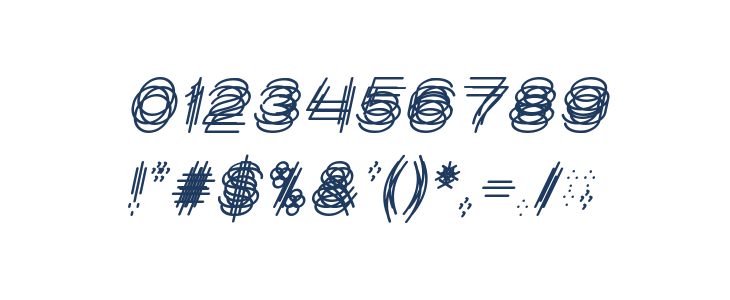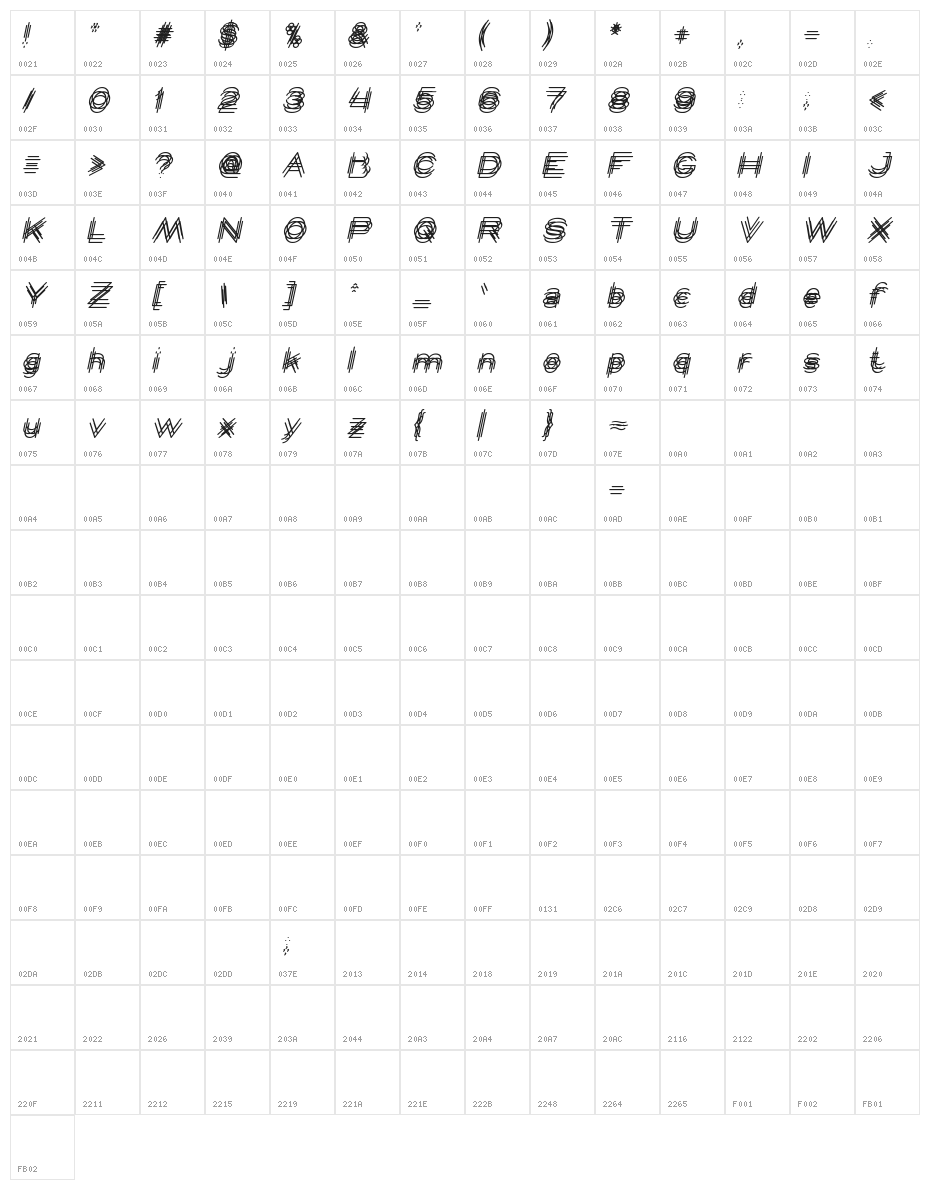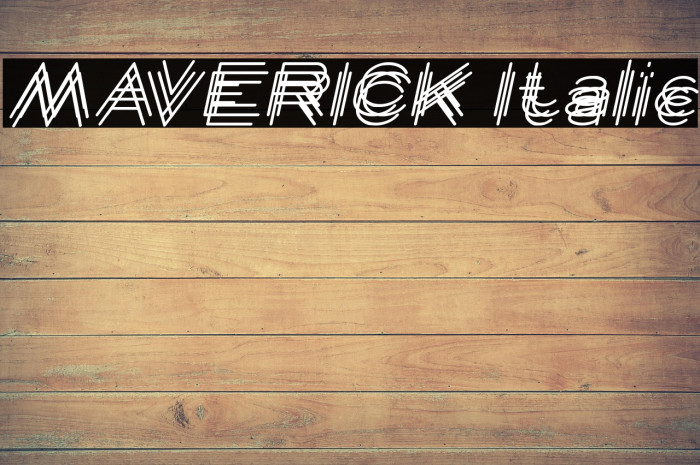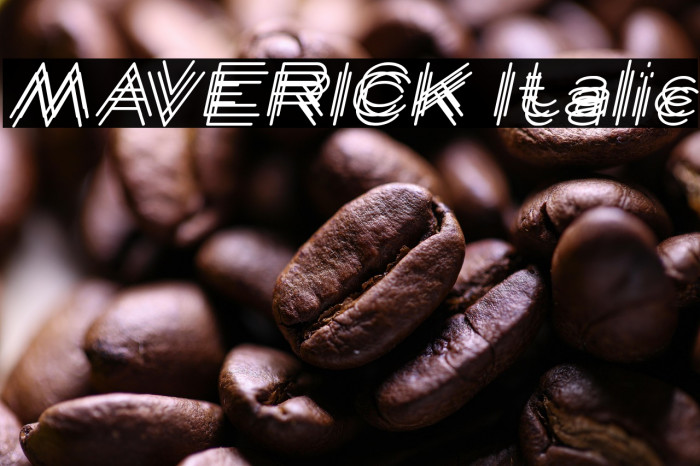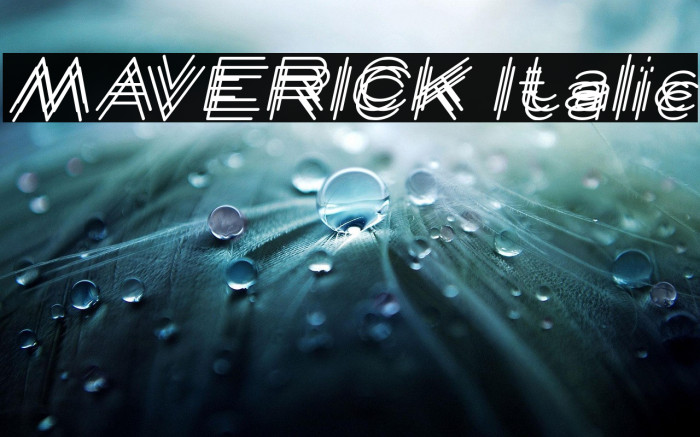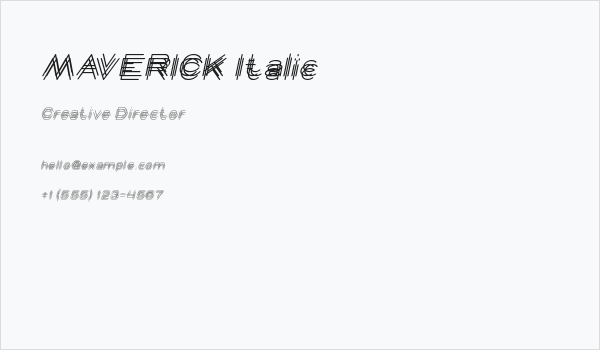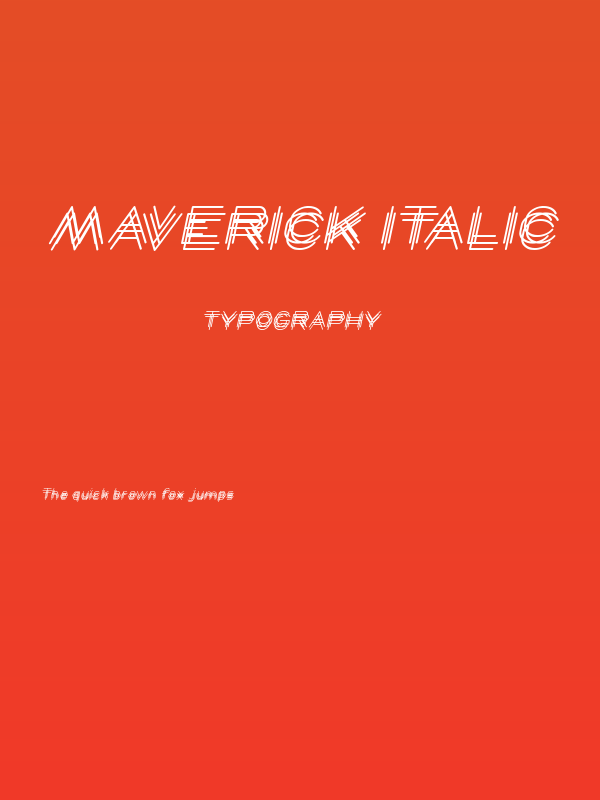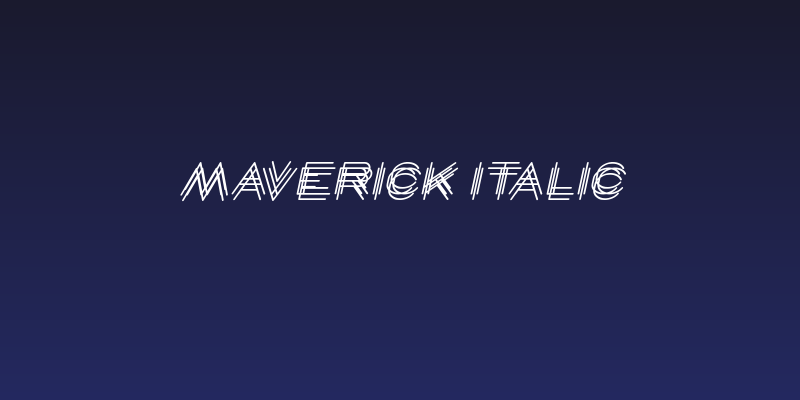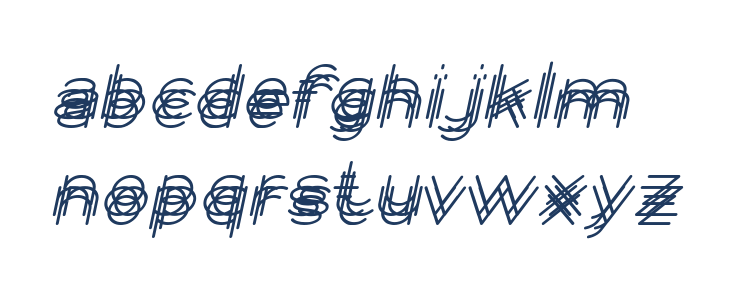
MAVERICK Italic Font
MAVERICK Italic Description
This font features a bold, italicized style with a unique overlapping line effect that creates a sense of movement and energy. The uppercase and lowercase letters maintain a consistent slant, enhancing the dynamic appearance. The numerals and special characters follow the same design, ensuring uniformity across all elements. The font's distinct style makes it stand out, with each character appearing as if it is in motion, thanks to the layered line effect. This design choice gives the font a modern and edgy feel, suitable for projects that require a bold statement.
| Proposed Projects | Ideal for branding, posters, and any design that requires a bold, modern statement. |